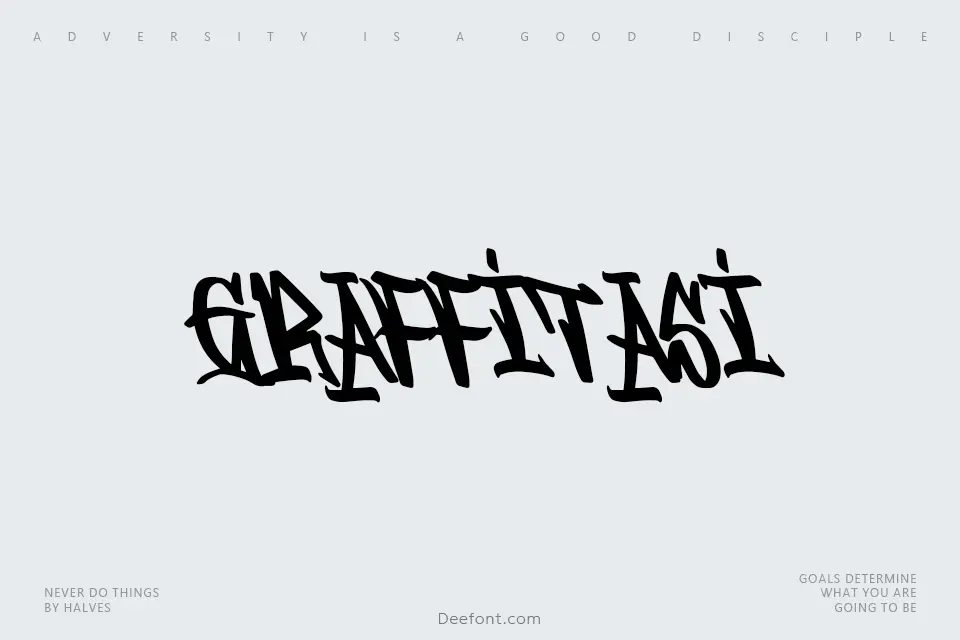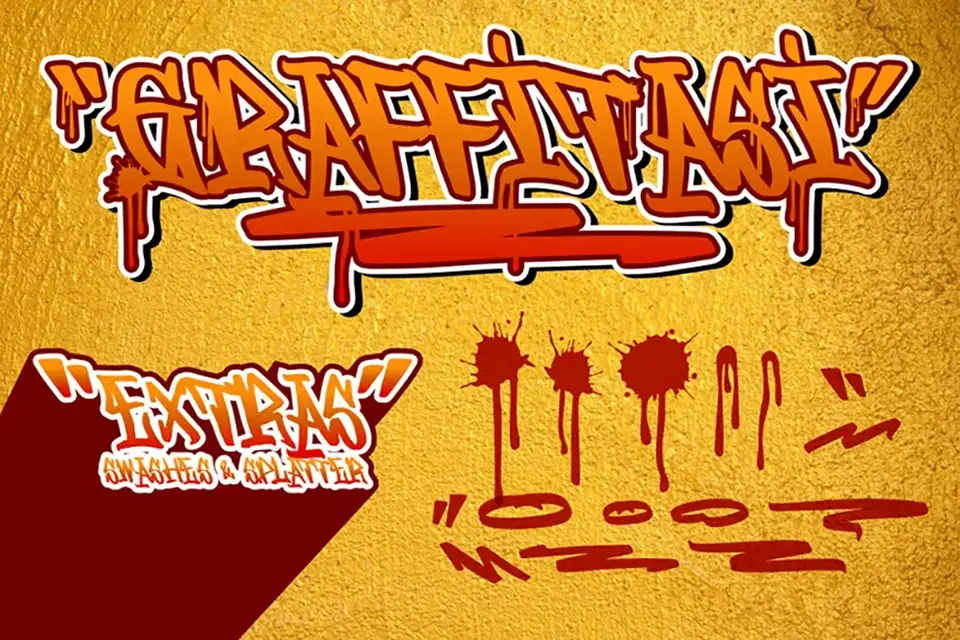
Graffitasi Font
Graffitasi is a unique graffiti-inspired script font designed with high artistic value from street writing aesthetics. This versatile typeface brings an authentic urban edge to creative projects, making it ideal for bold graphic designs, eye-catching posters, and distinctive branding applications. The font delivers striking visual impact while maintaining legibility across various design contexts and sizes.